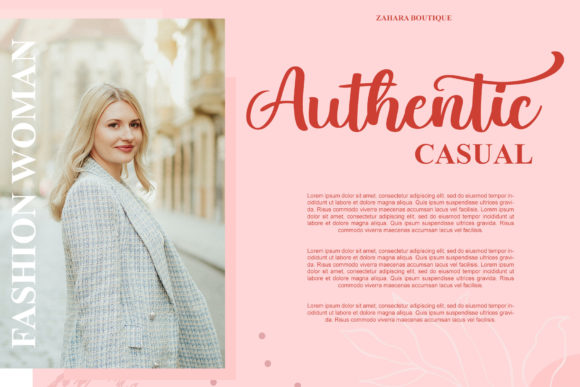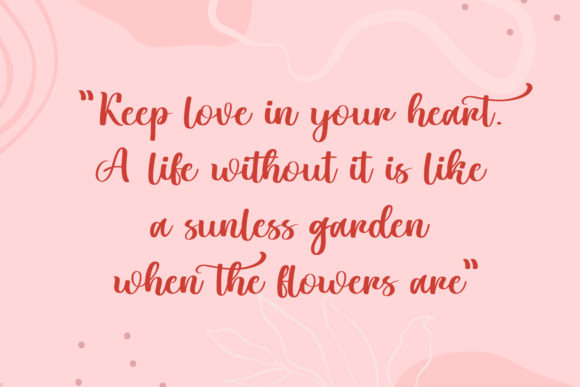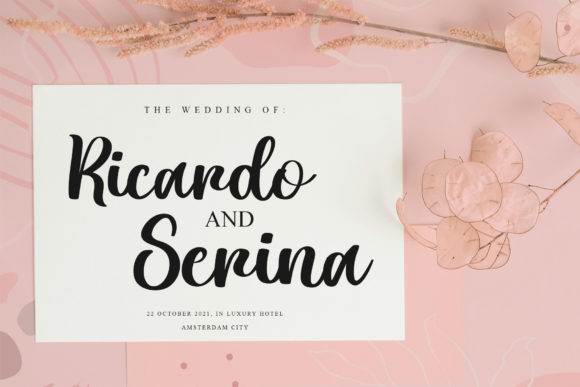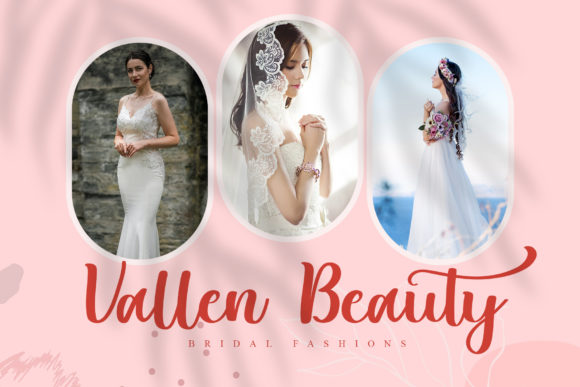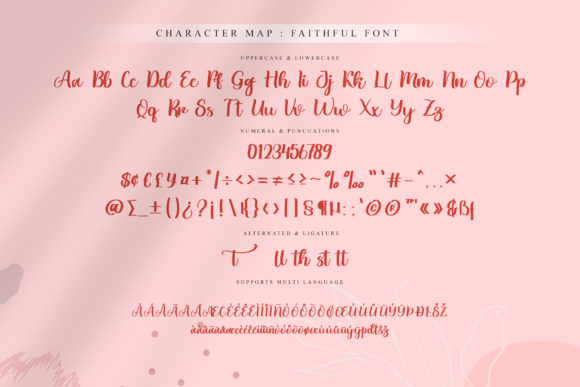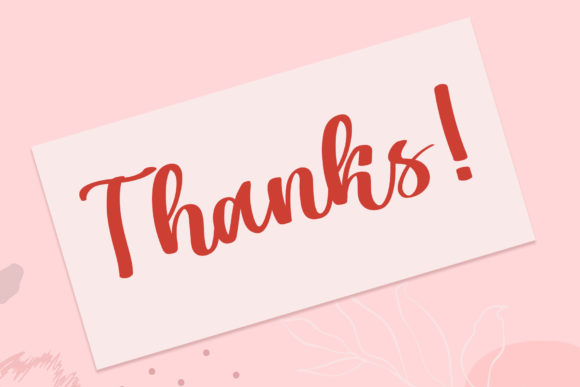
Discover the Elegance of Faithful Font: A Timeless Handwritten Style
Are you on the hunt for a font that exudes elegance and sophistication? Look no further than Faithful Font, a beautiful, flowing handwritten font that is sure to capture your heart. With its incredibly distinct and timeless style, Faithful Font is perfect for designers and crafters looking to add a touch of class to their projects.
The Characteristics of Faithful Font
Faithful Font is described by its elegant touch, which sets it apart from other handwritten fonts. Its flowing lines and curves create a sense of movement and fluidity, making it perfect for projects that require a touch of sophistication. The font’s unique style is both classic and modern, making it versatile enough to be used in a wide range of designs.
What Makes Faithful Font So Special?
So, what makes Faithful Font so special? For starters, its distinct style is sure to make your designs stand out from the crowd. The font’s elegant touch and flowing lines create a sense of luxury and sophistication, making it perfect for high-end designs. Additionally, Faithful Font is incredibly versatile, and can be used in a variety of projects, from wedding invitations and branding materials to blog posts and social media graphics.
The Benefits of Using Faithful Font
There are many benefits to using Faithful Font in your designs. For one, it’s a great way to add a touch of elegance and sophistication to your projects. The font’s unique style is also sure to make your designs more memorable, which can be especially important for branding and marketing materials. Additionally, Faithful Font is easy to read and understand, making it perfect for body text and other written content.
How to Use Faithful Font in Your Designs
- Use Faithful Font as a headline font to add a touch of elegance to your designs.
- Pair Faithful Font with a sans-serif font for a classic and modern look.
Faithful Font is perfect for designers and crafters who are looking for a unique and elegant font to add to their collection. Whether you’re working on a client project or creating something for your own brand, Faithful Font is sure to impress. Its timeless style and versatility make it a great addition to any design library.
Key Features of Faithful Font
- Elegant and flowing handwritten style
- Incredibly distinct and timeless style
- Perfect for high-end designs and branding materials
- Versatile and easy to read
- Great for headlines, body text, and more
Overall, Faithful Font is a great choice for anyone looking to add a touch of elegance and sophistication to their designs. Its unique style and versatility make it a great addition to any design library, and its ease of use makes it perfect for designers and crafters of all skill levels.